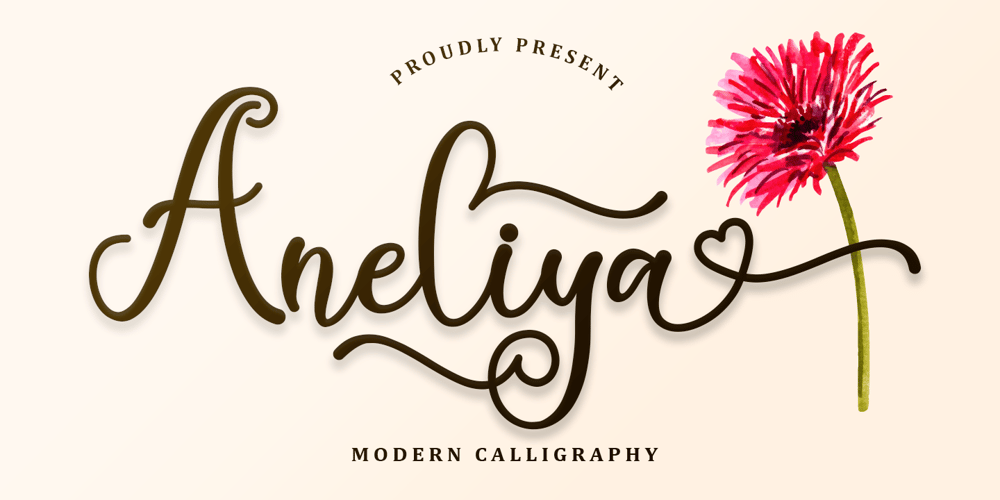
Aneliya Font Family was designed by Alif Ryan Zulfikar and published by Sakha Design. Aneliya contains 2 styles and family package options. Aneliya is a romantic and sweet handwritten font. It will add a luxury spark to any design project that you wish to create! This font is PUA encoded which means you can access all of the amazing glyphs and ligatures with ease!